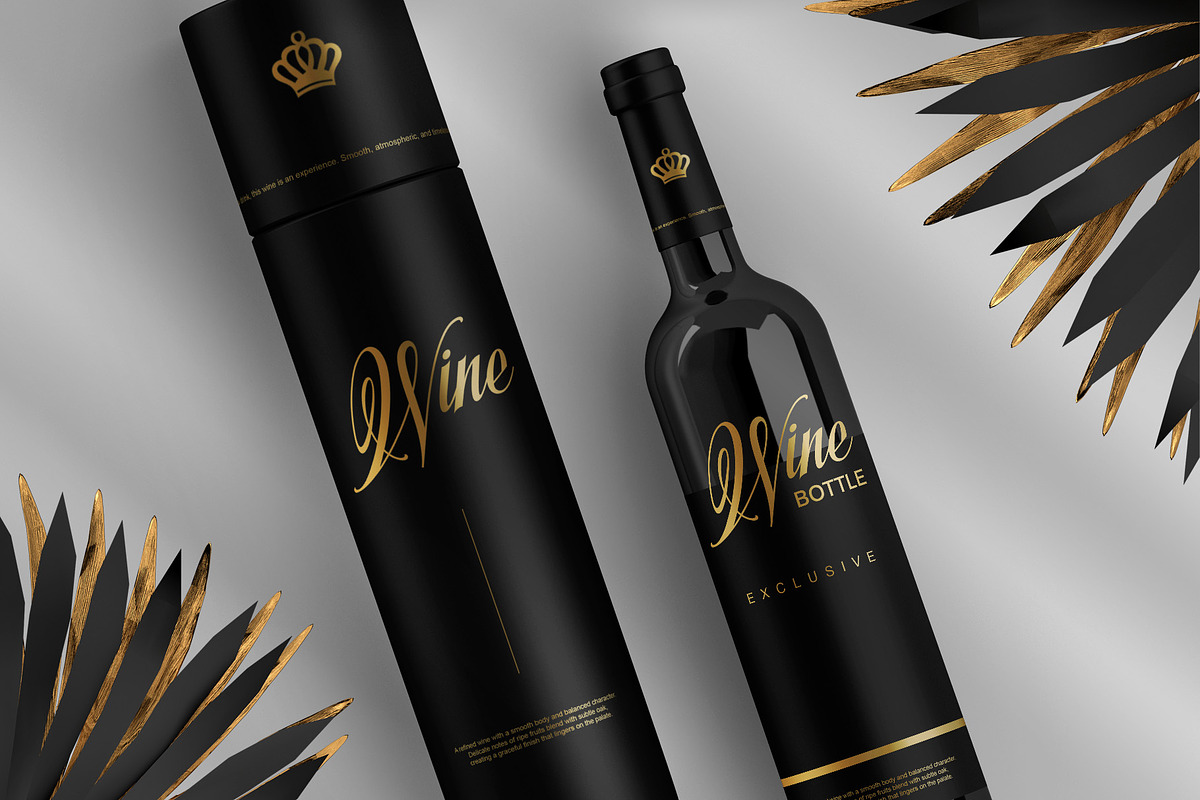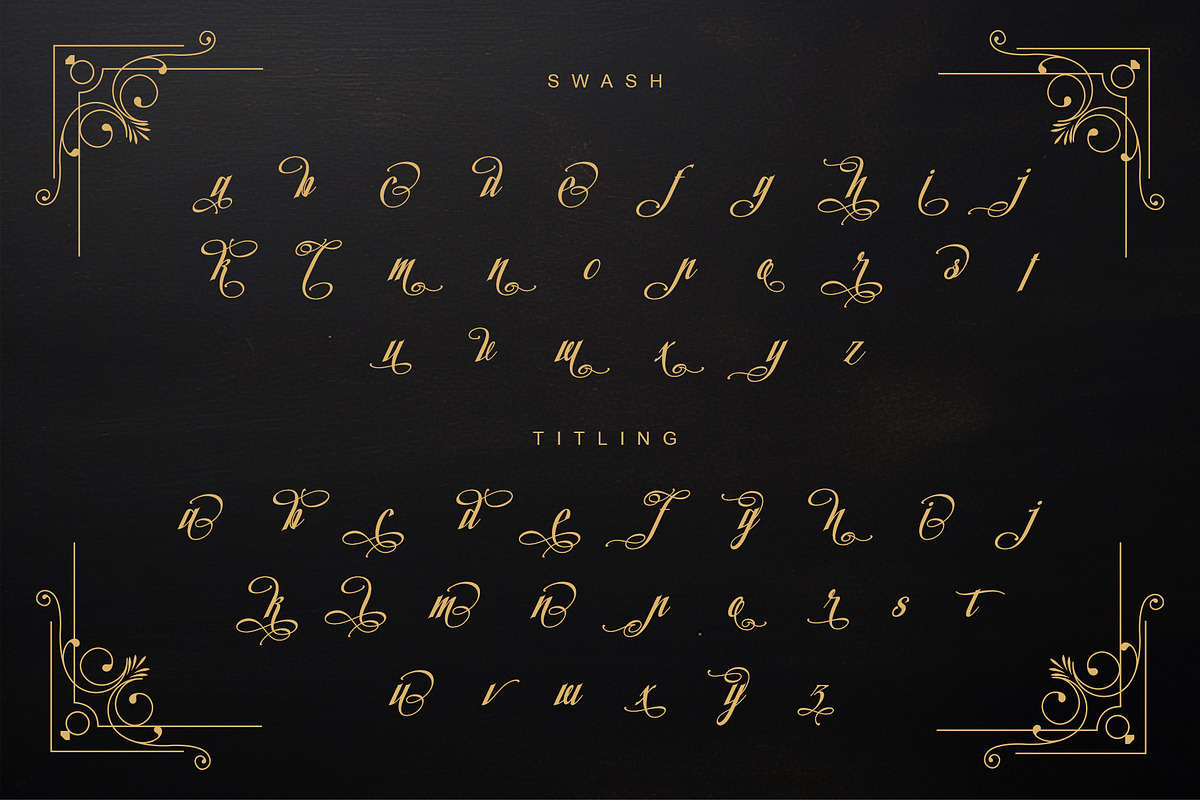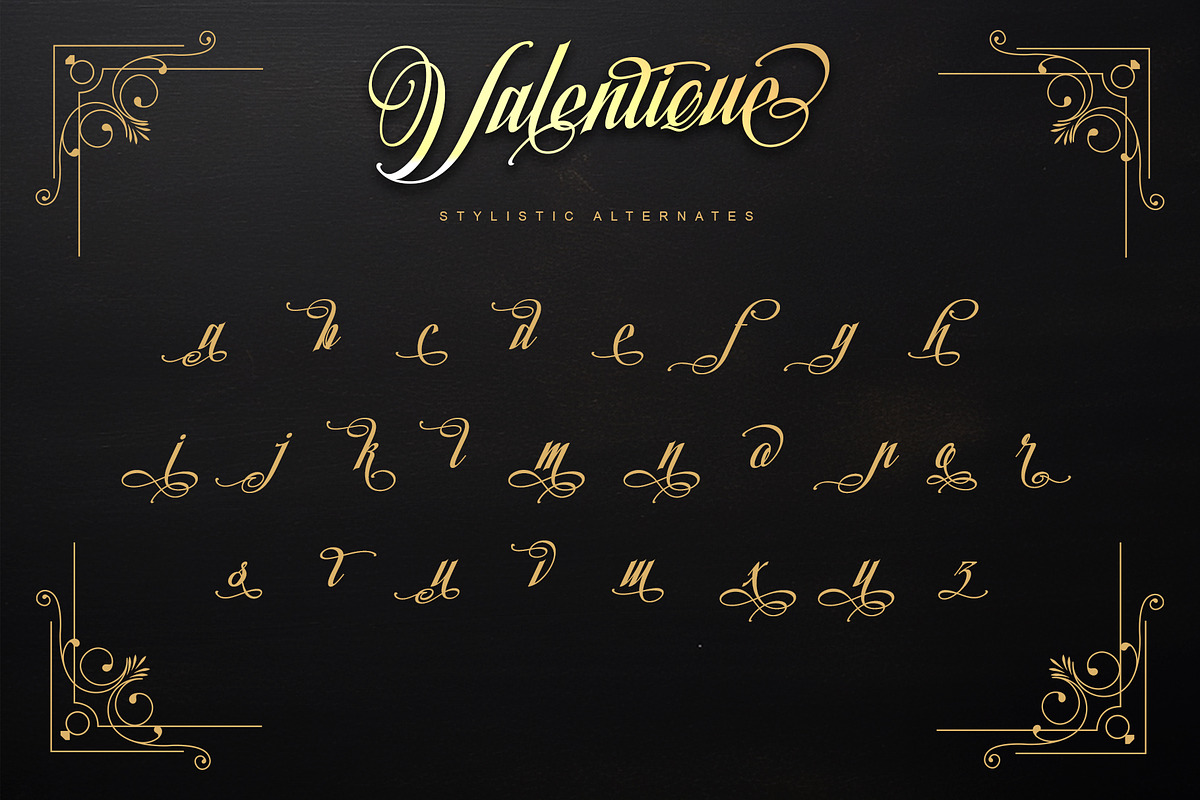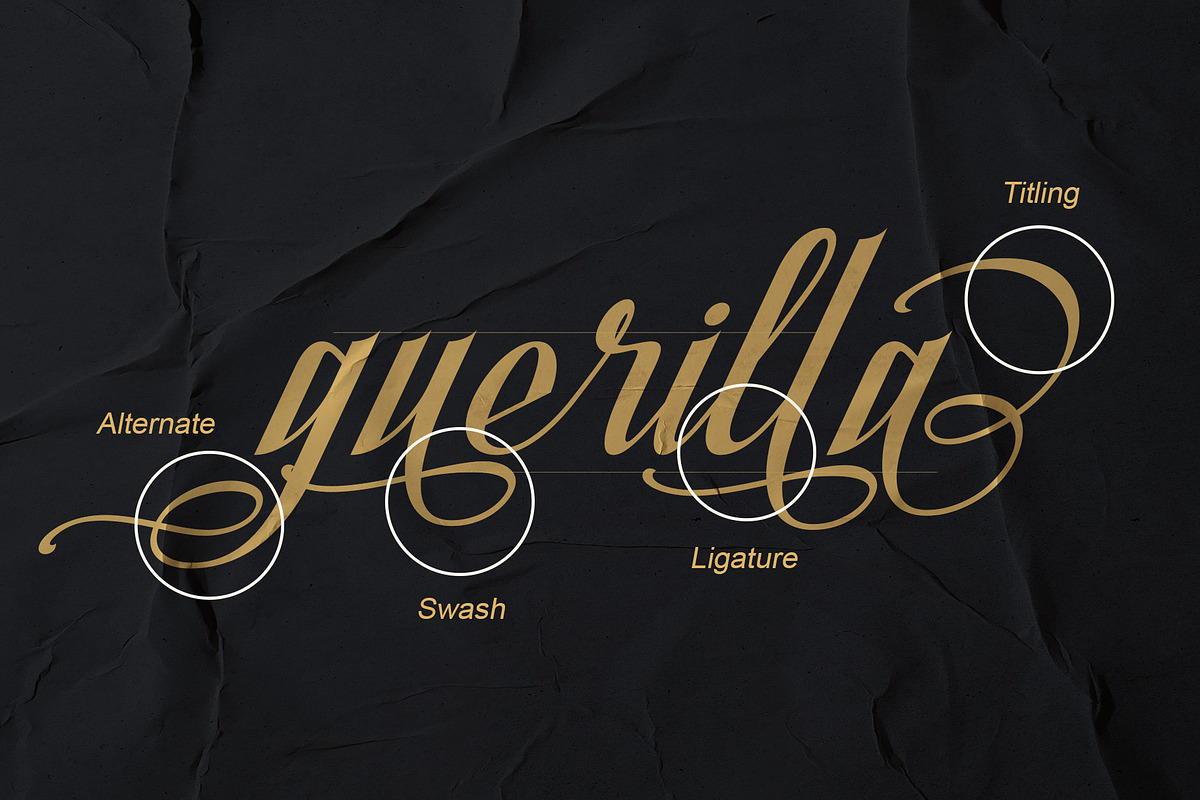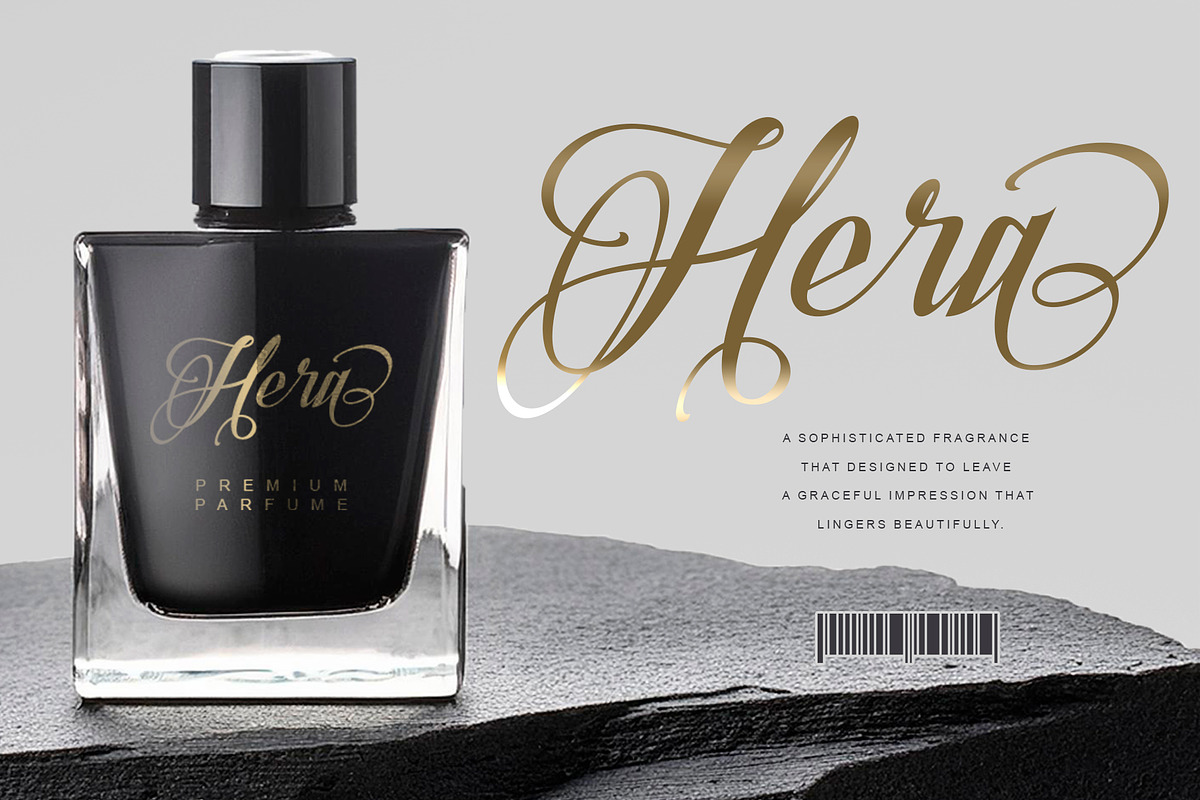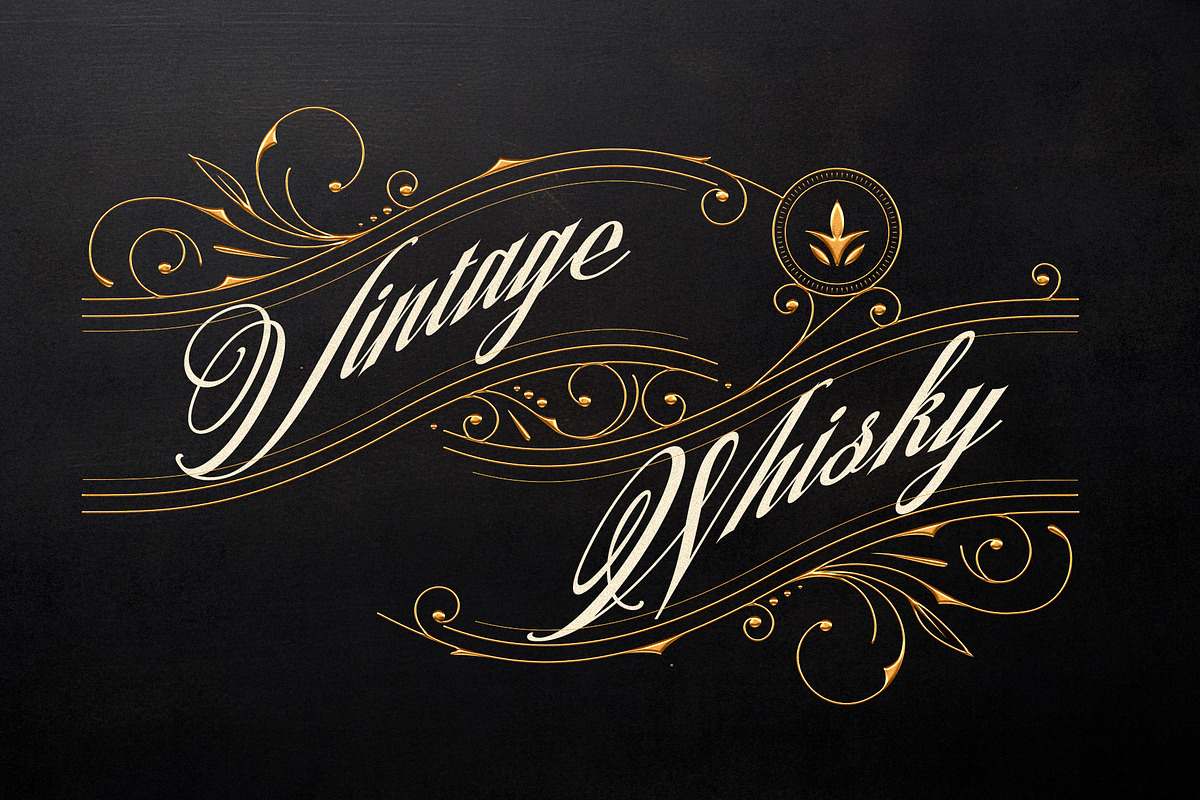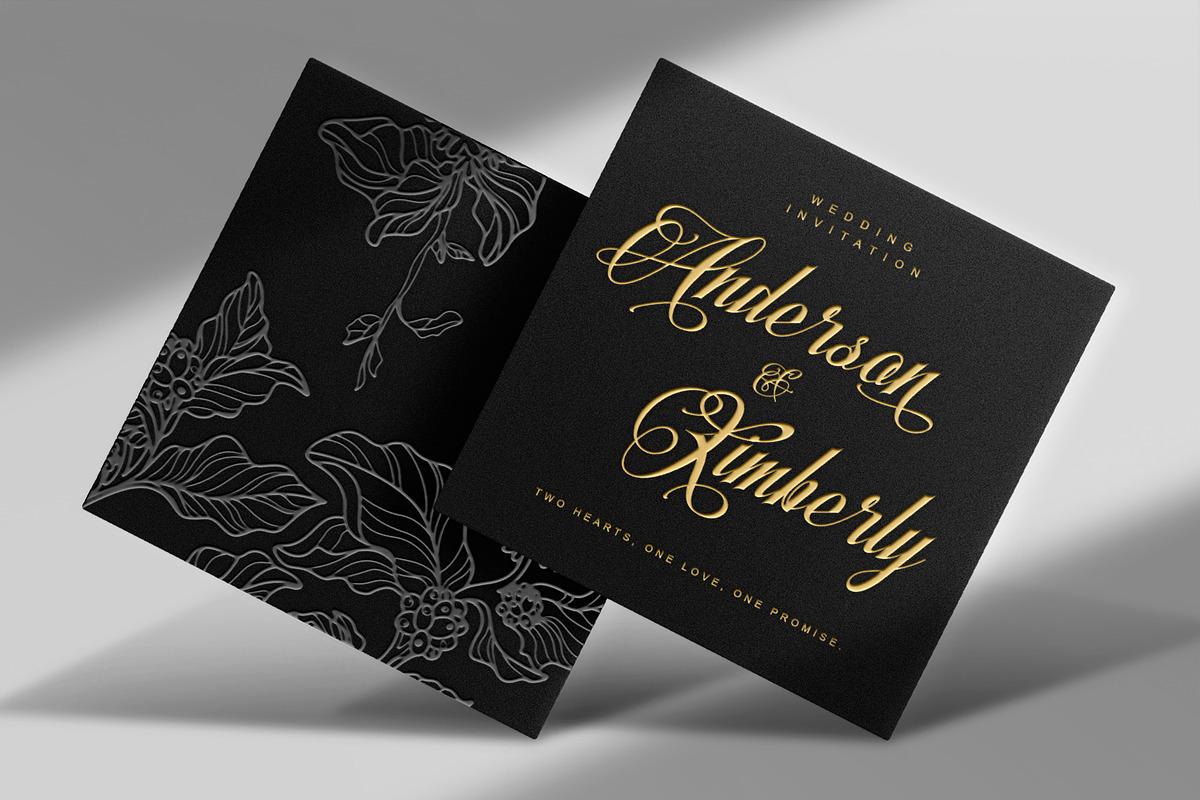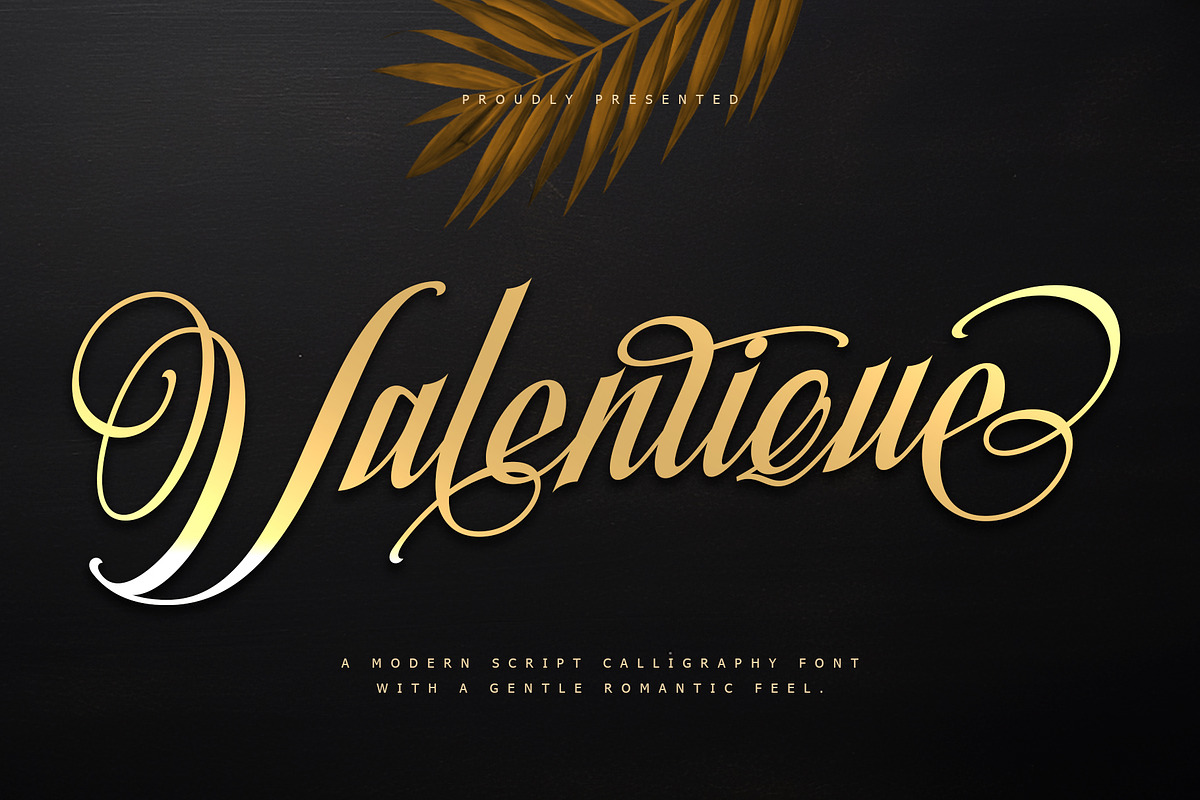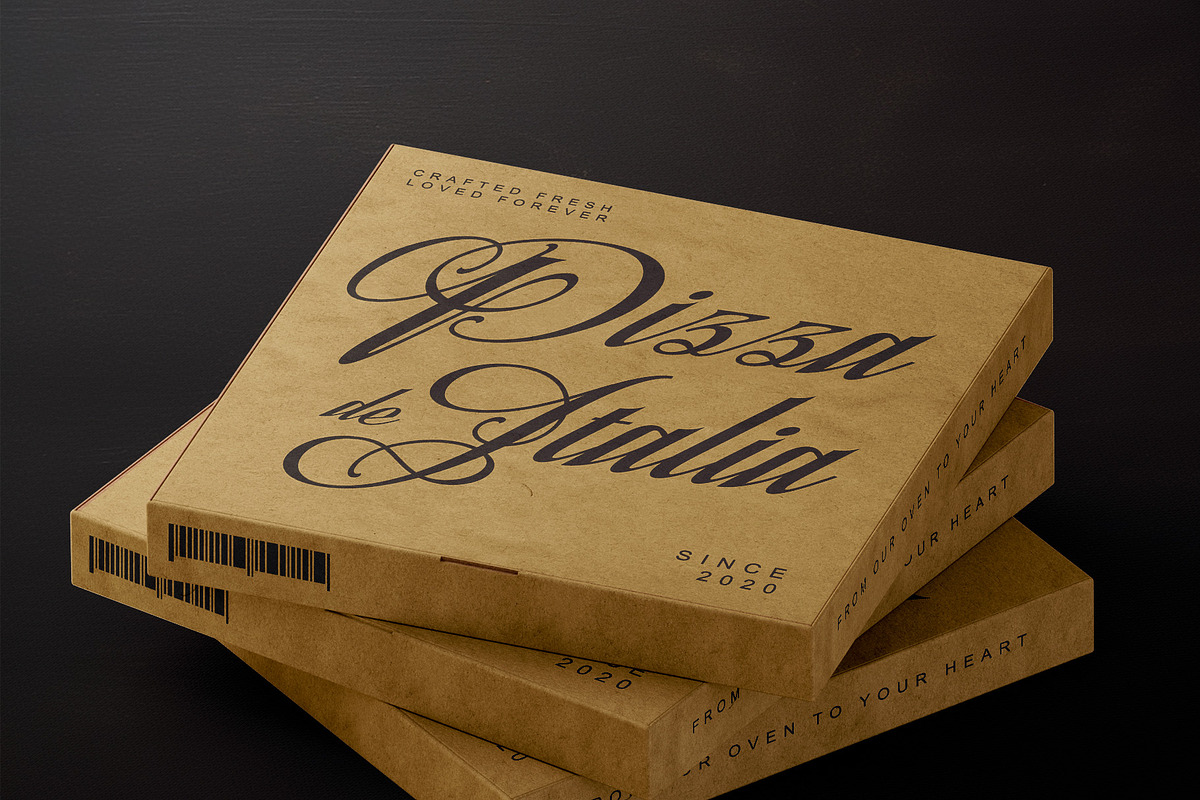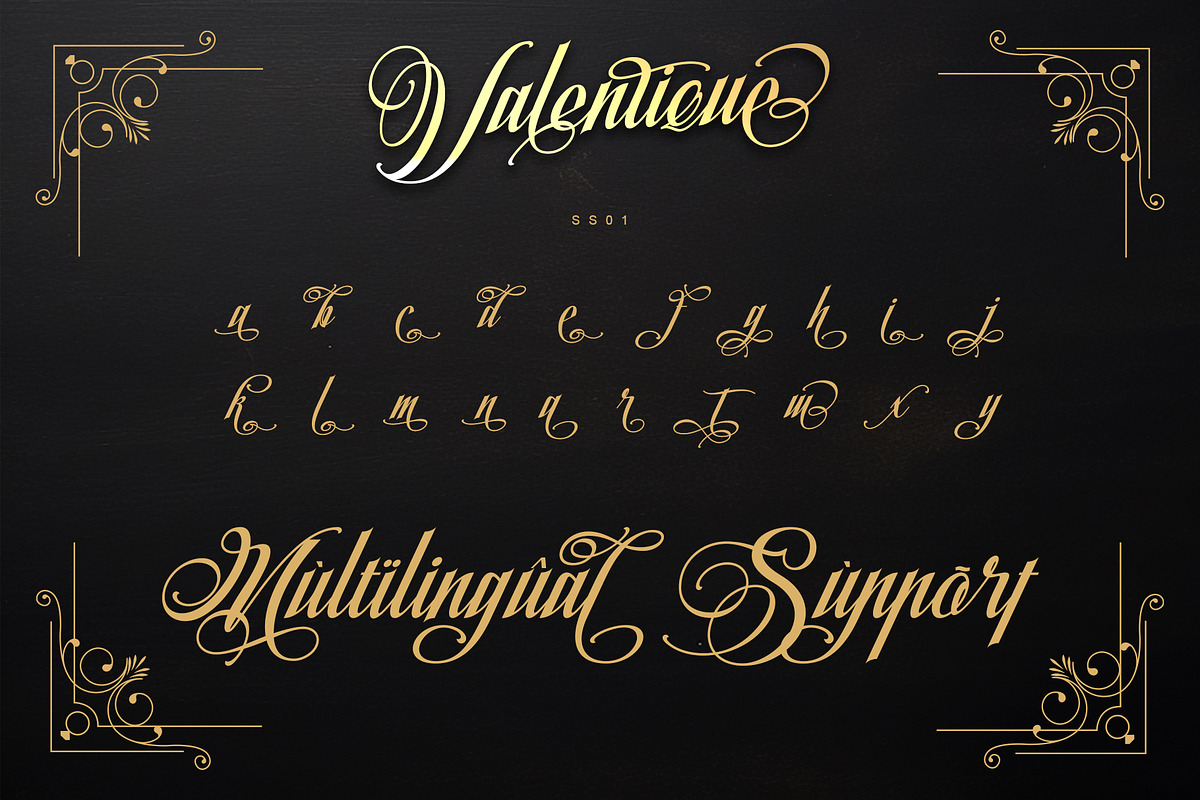
Valentique - Romantic calligraphy
Introducing Valentique, a modern script calligraphy font crafted to capture the poetry of romance and refined expression. Flowing with graceful curves and beautifully balanced strokes, Valentique radiates warmth, intimacy, and timeless charm in every letter. Its smooth calligraphic rhythm creates an emotional connection, turning simple words into meaningful visual stories. Designed to shine in premium branding, romantic quotes, luxury packaging, editorial headlines, and expressive creative projects, Valentique brings a soft yet confident presence that feels both contemporary and heartfelt. Each character is thoughtfully shaped to deliver elegance without excess, making your typography feel personal, fluid, and unforgettable. Fully PUA-encoded, Valentique provides effortless access to its decorative glyphs and swashes, giving you complete freedom to craft unique and expressive compositions. Let Valentique elevate your designs with a touch of romance, sophistication, and artistic soul—where every letter speaks from the heart.
Many Features:
- Support multilingual; ä ö ü Ä Ö Ü ß ¿ ¡
- lowercase and uppercase letters
- Alternate, Swash, Titling, Ligature & SS01